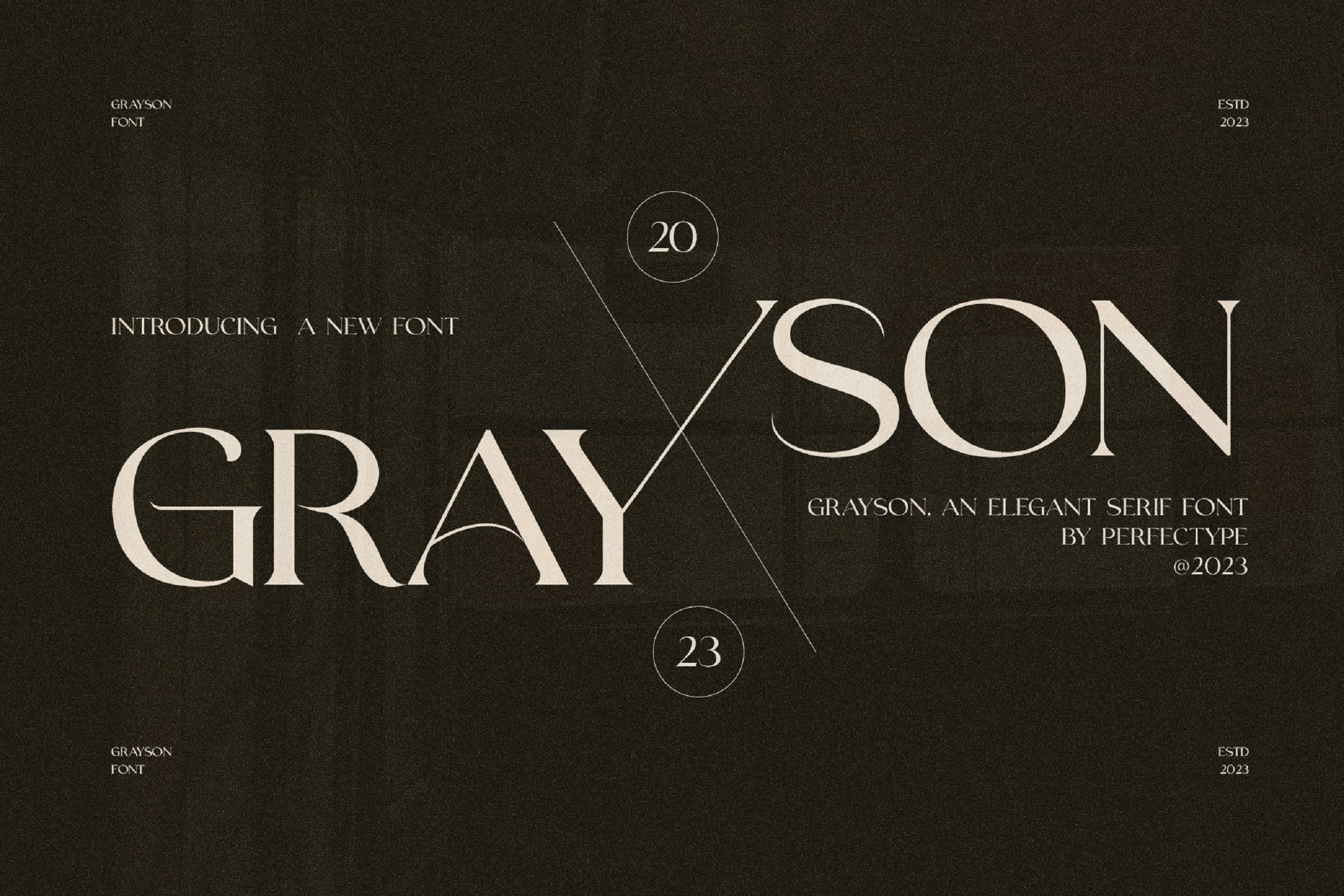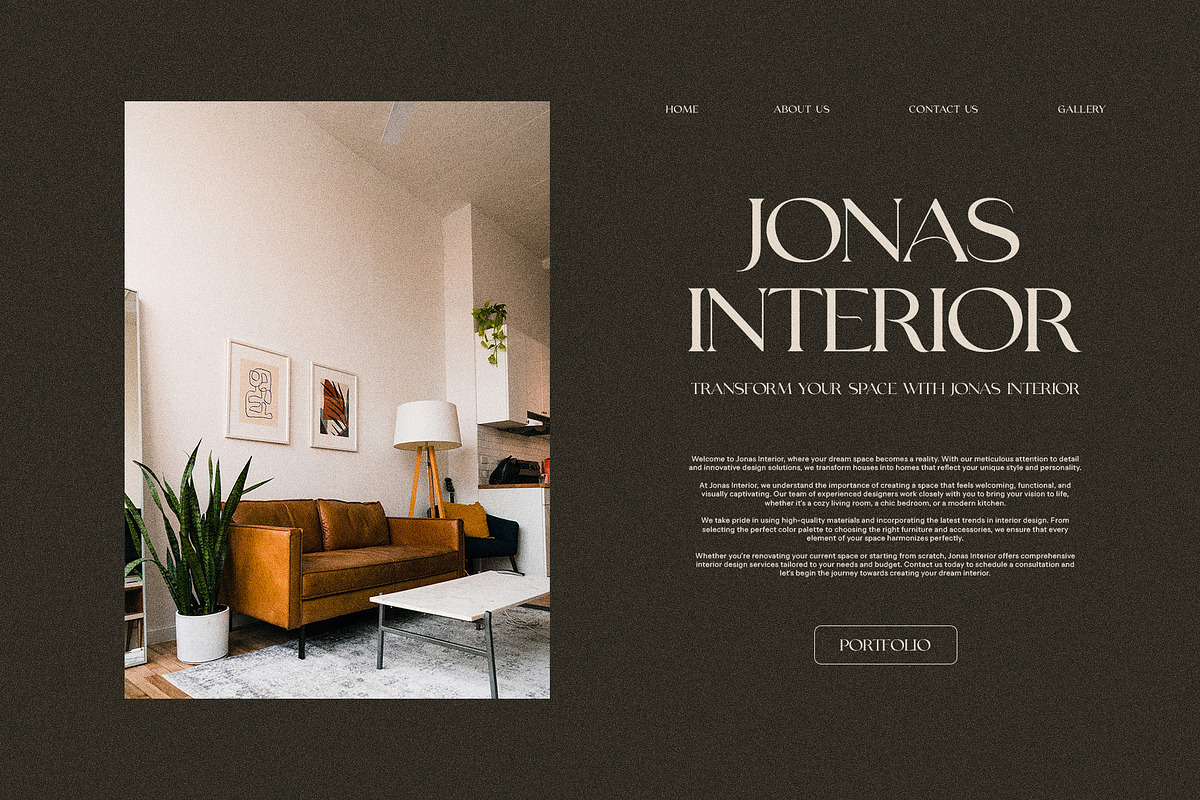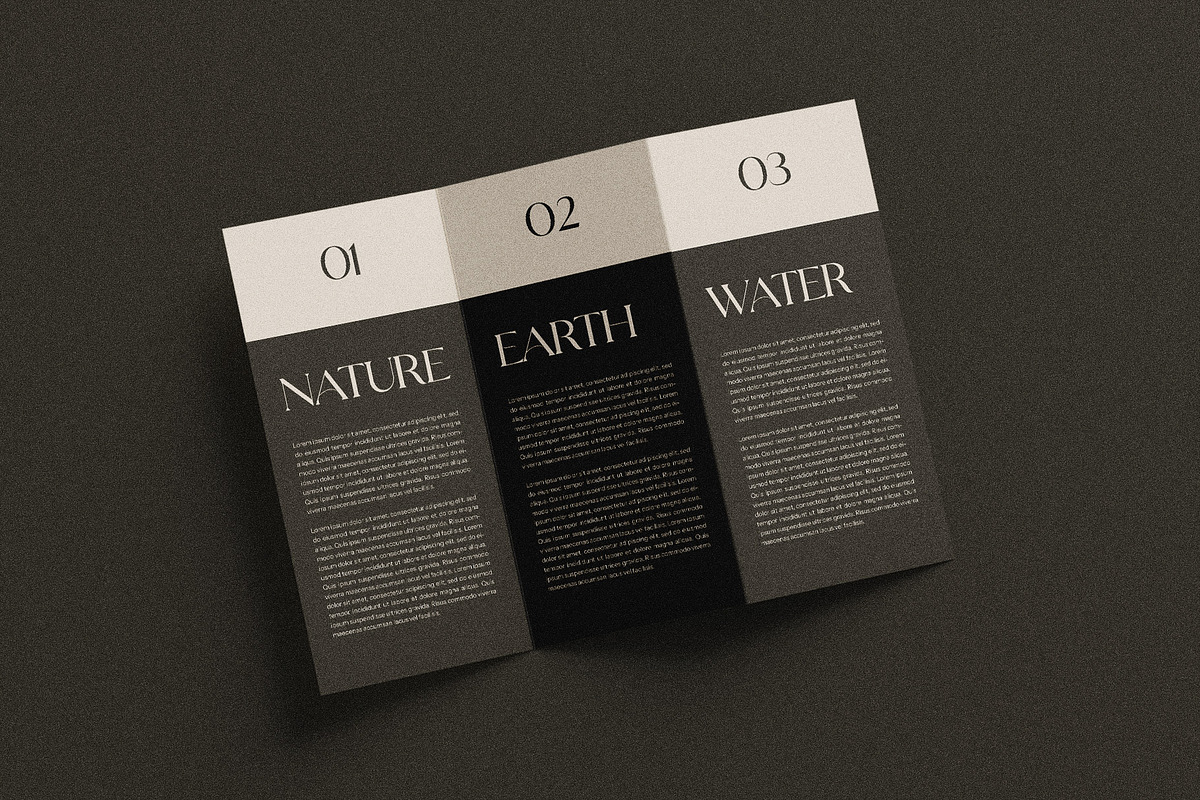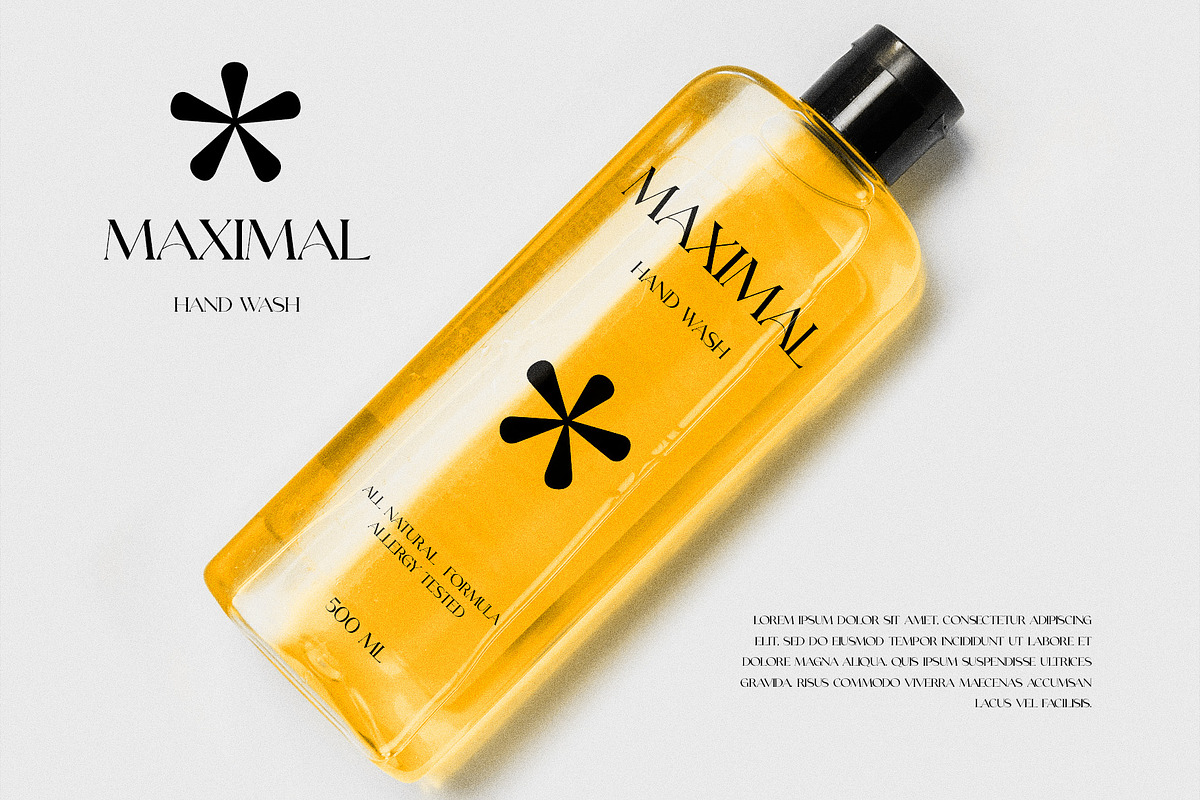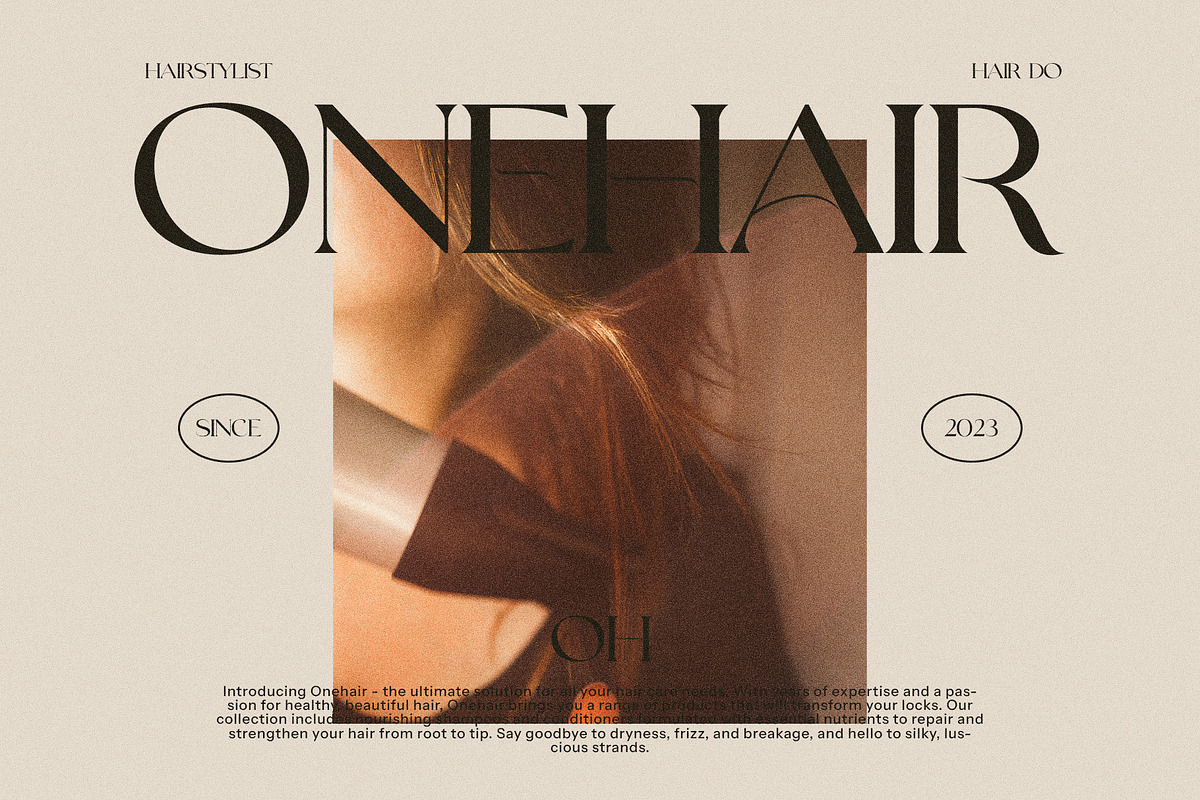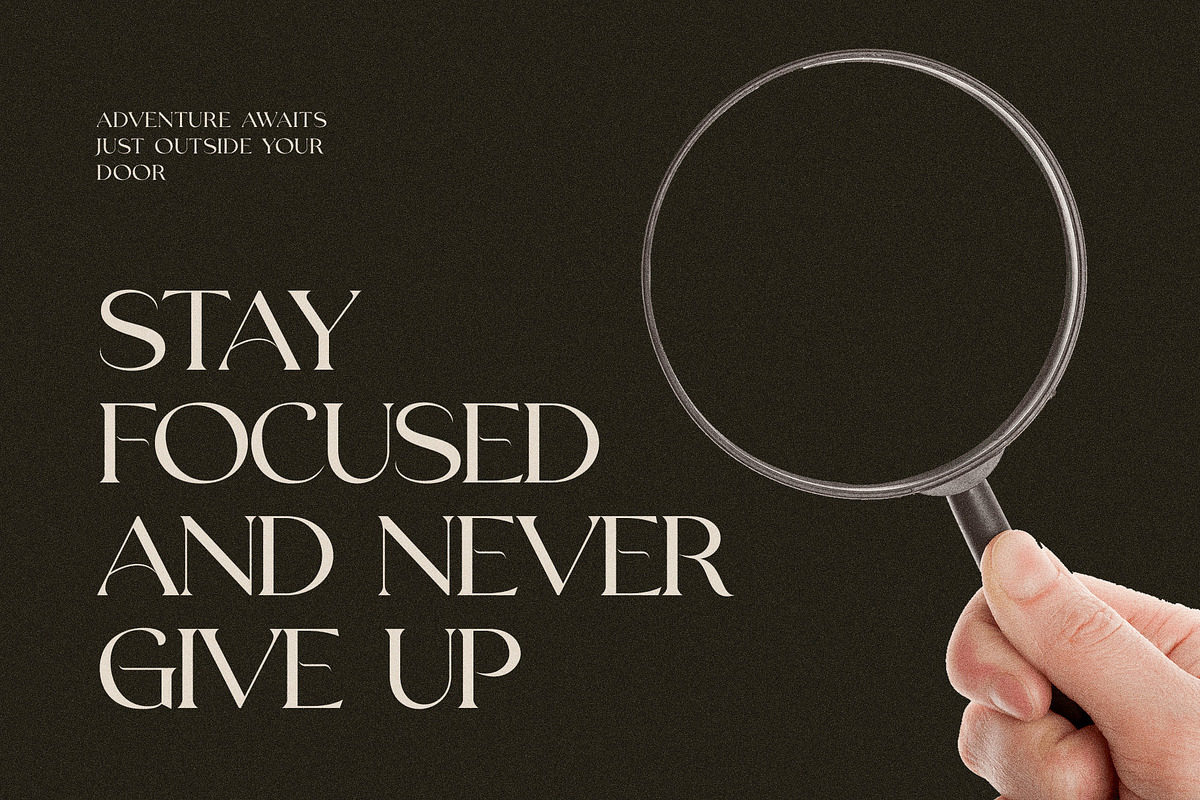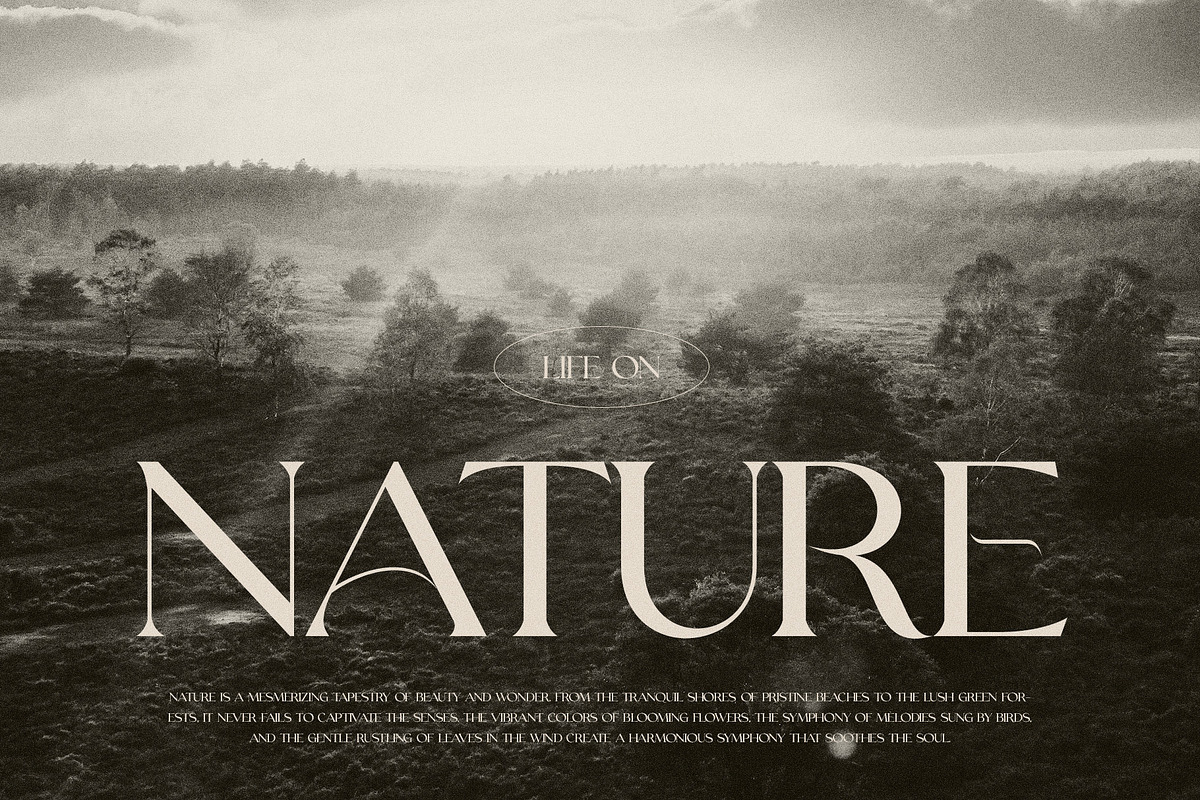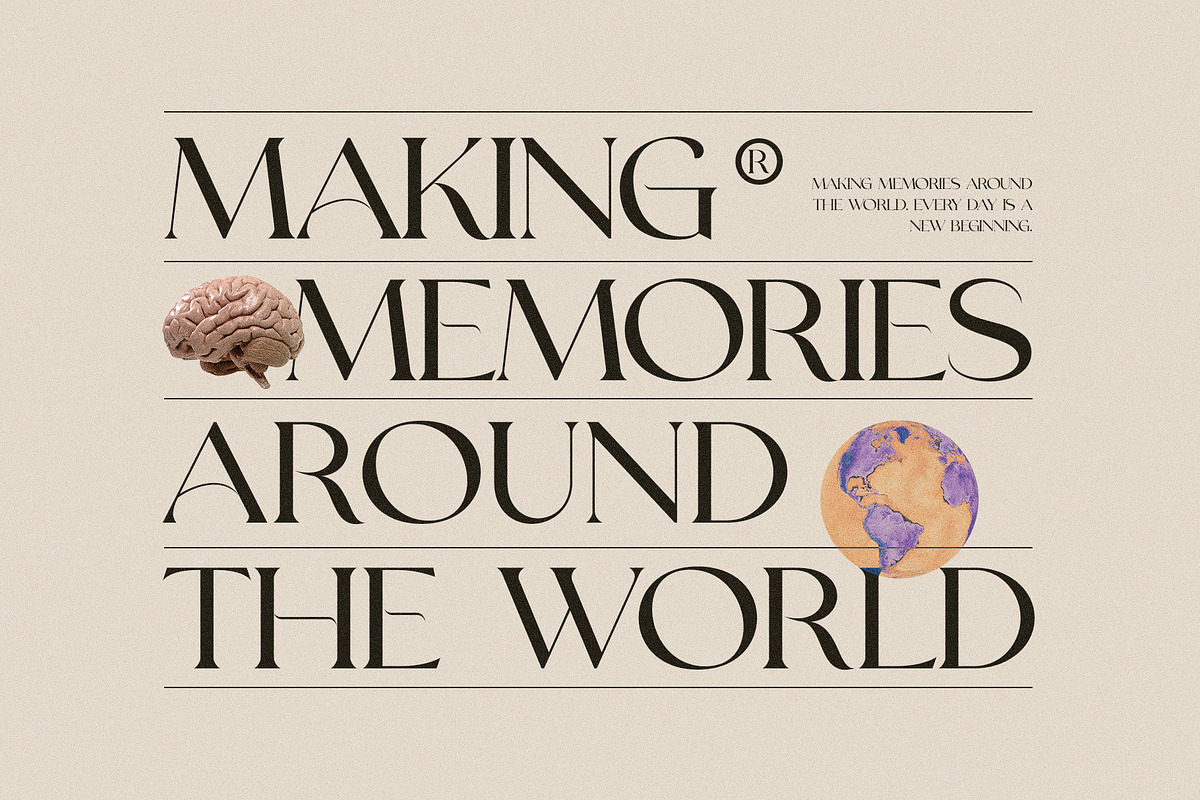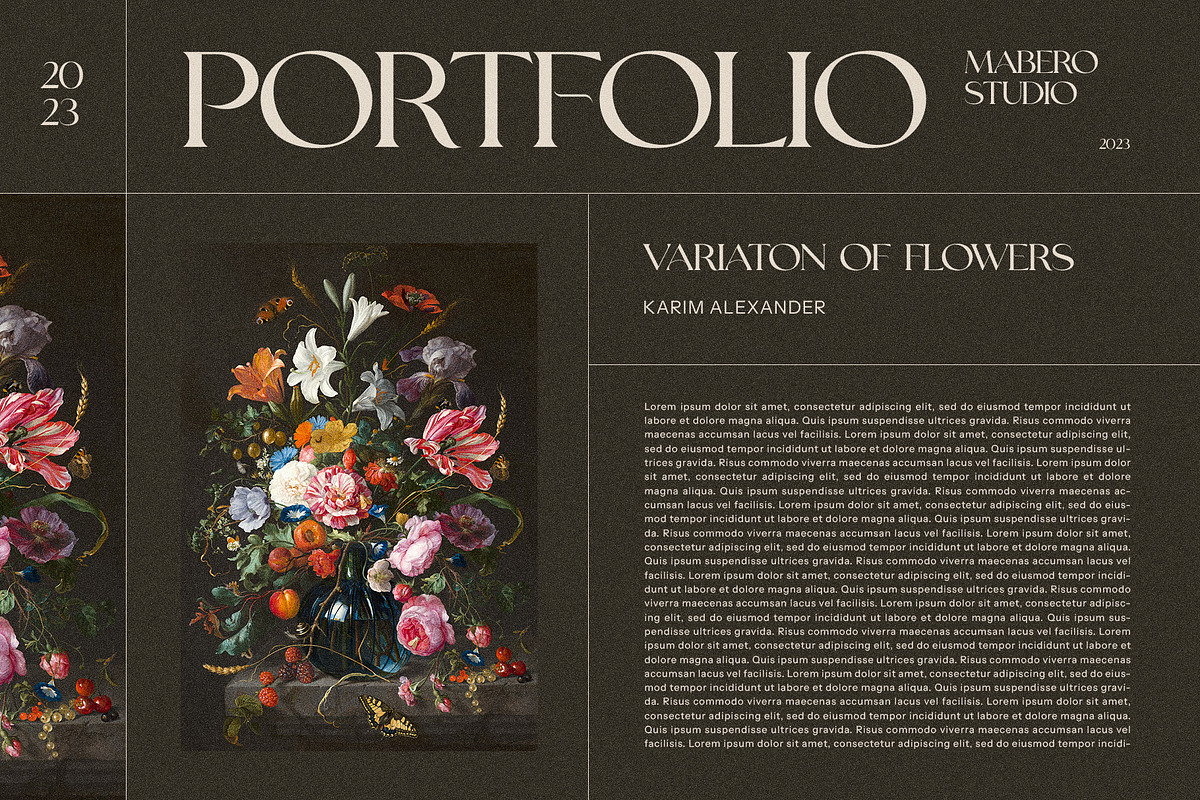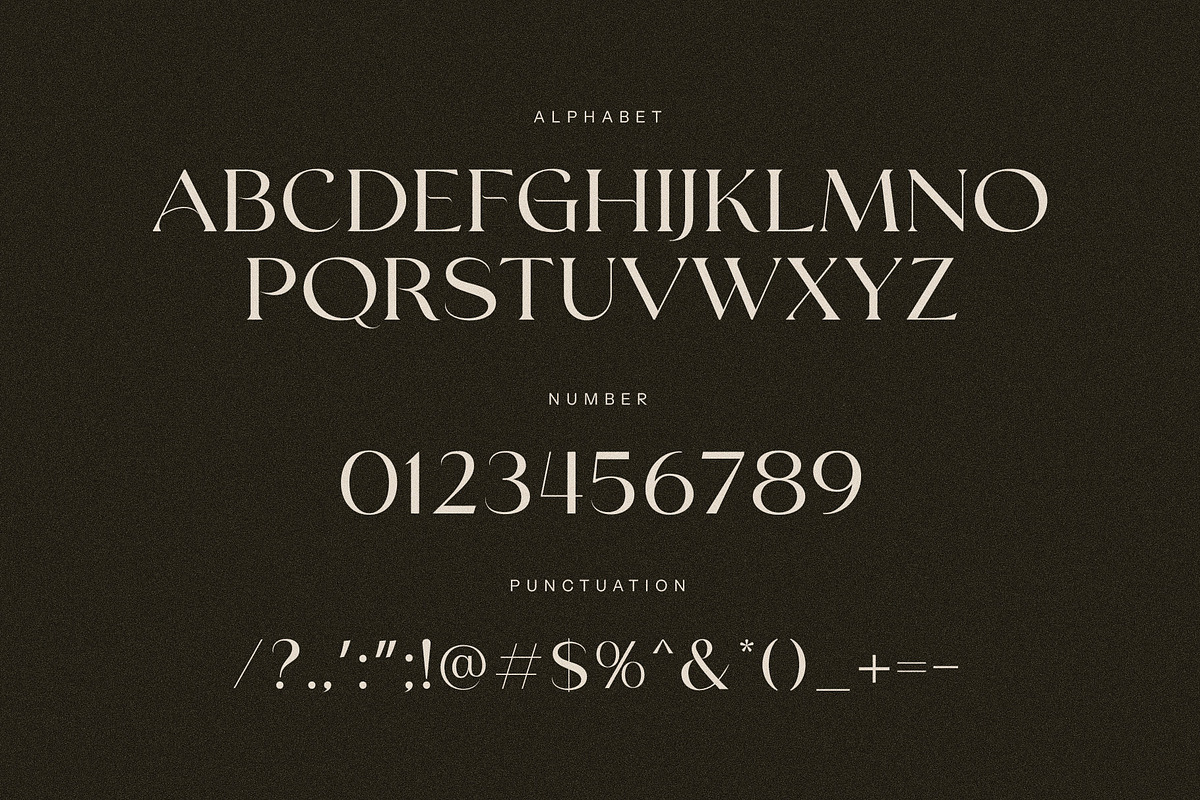
Grayson Elegant Serif Font Typeface
Grayson is a unique and very elegant font for branding and logo designs Elegant serif typeface combined with a classy and modern style. This type of font is very suitable for your various needs such as branding projects, logos, wedding designs, social media posts, advertisements, product packaging, product designs, labels, photography, watermarks, invitations, stationery, and any project, created with high level of readability. you will not be disappointed if you buy this font!!